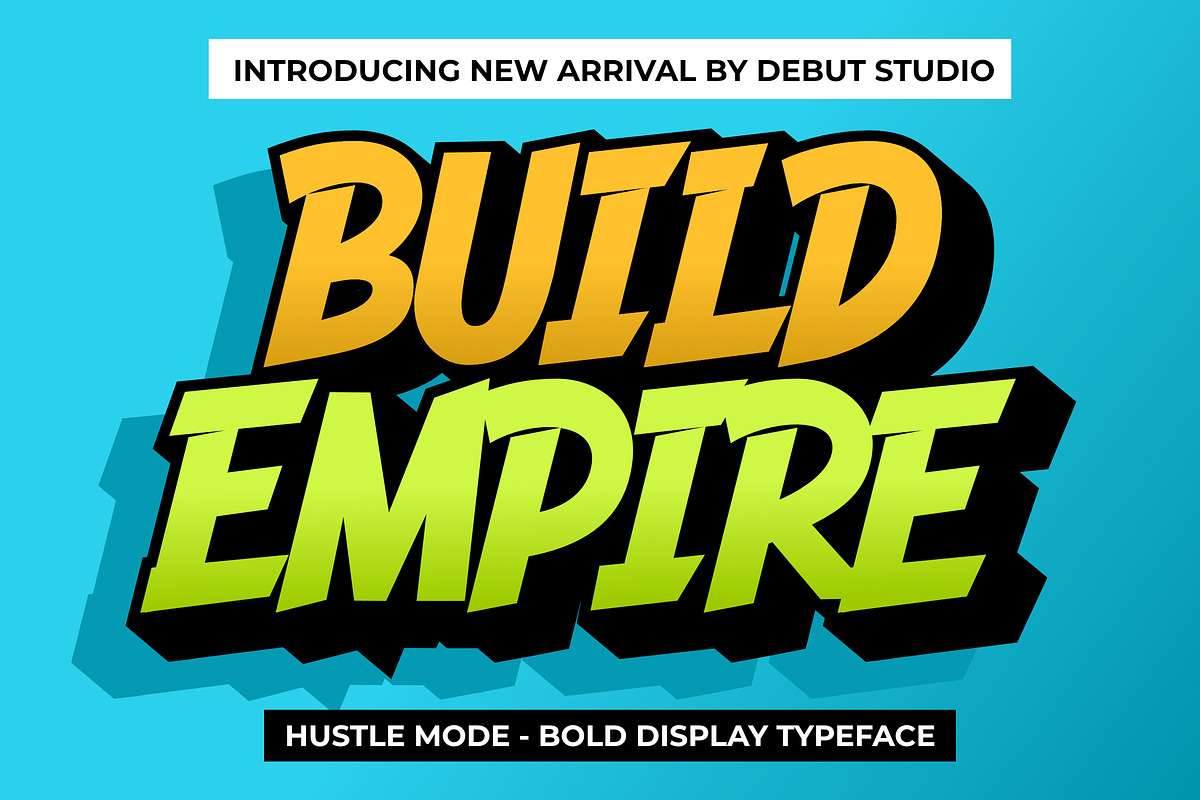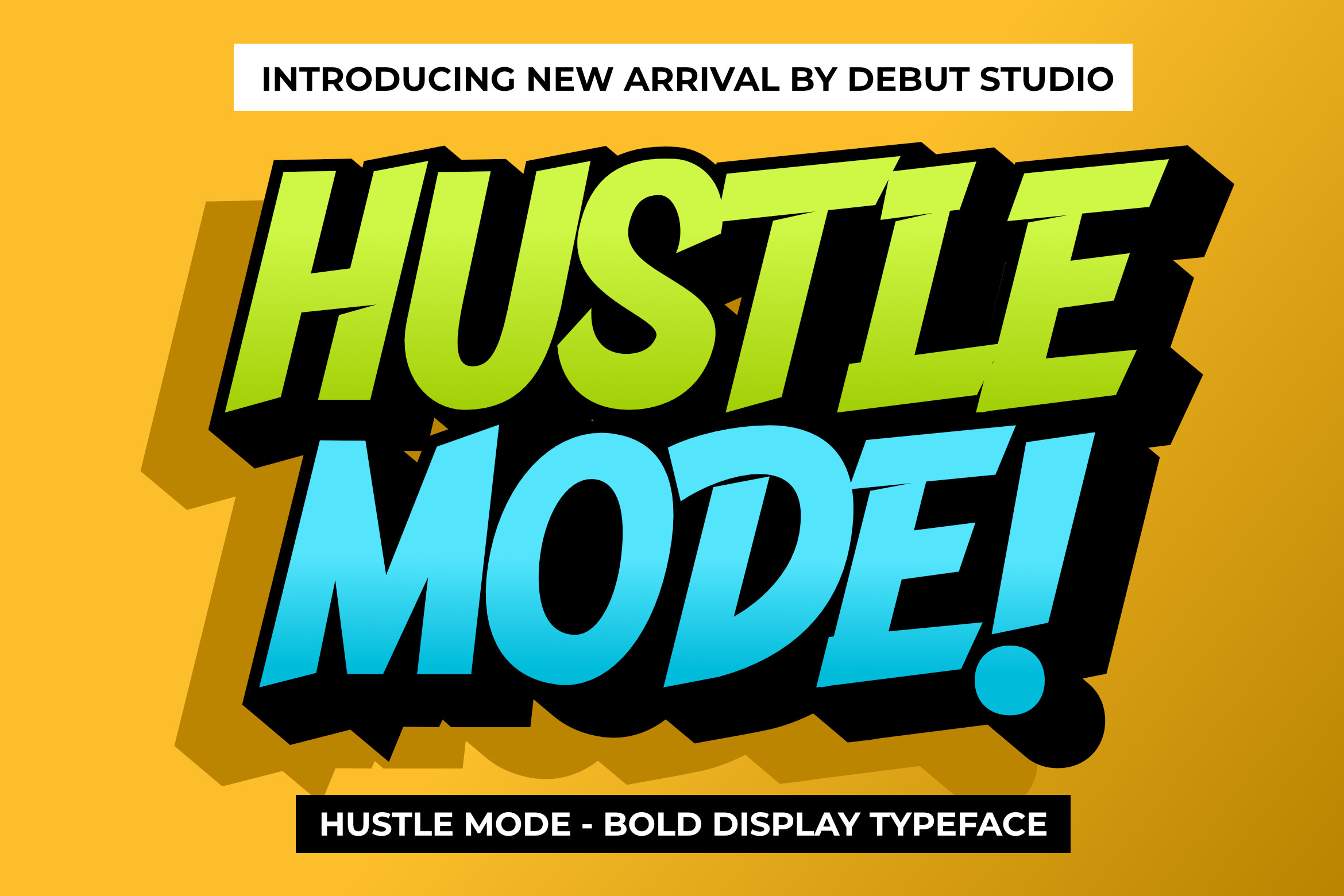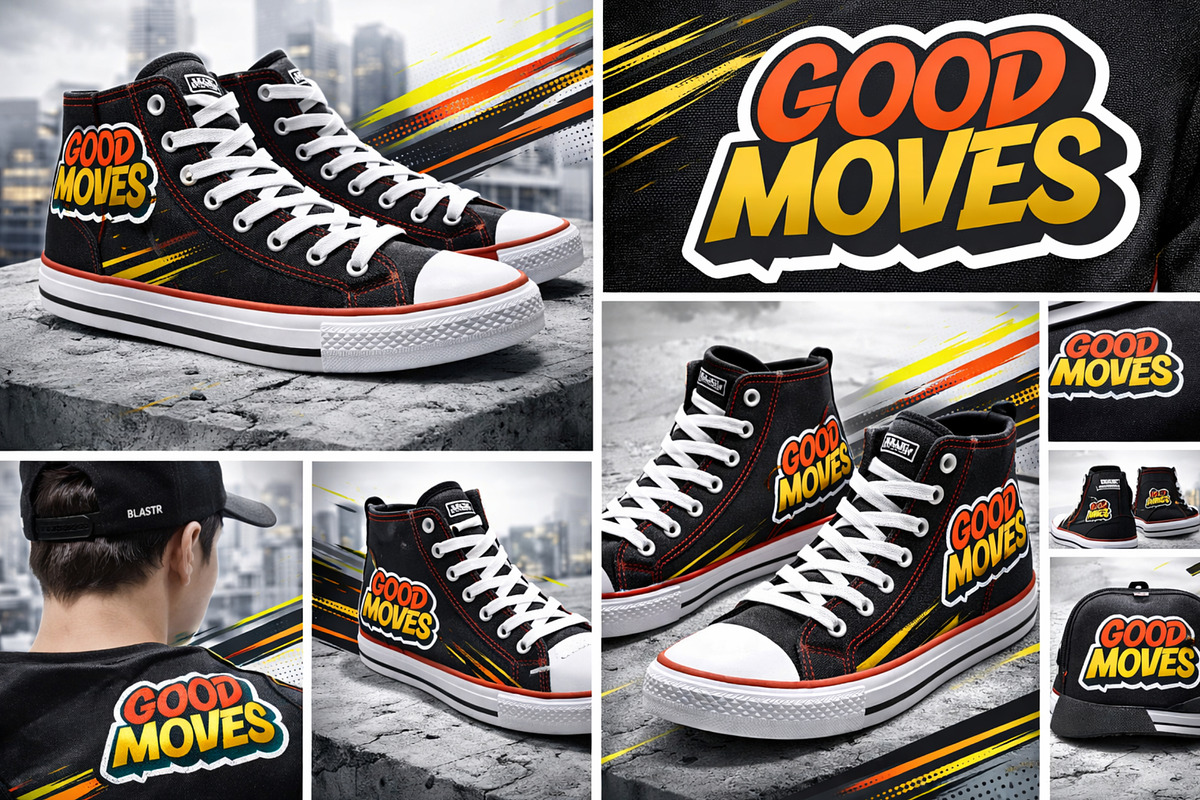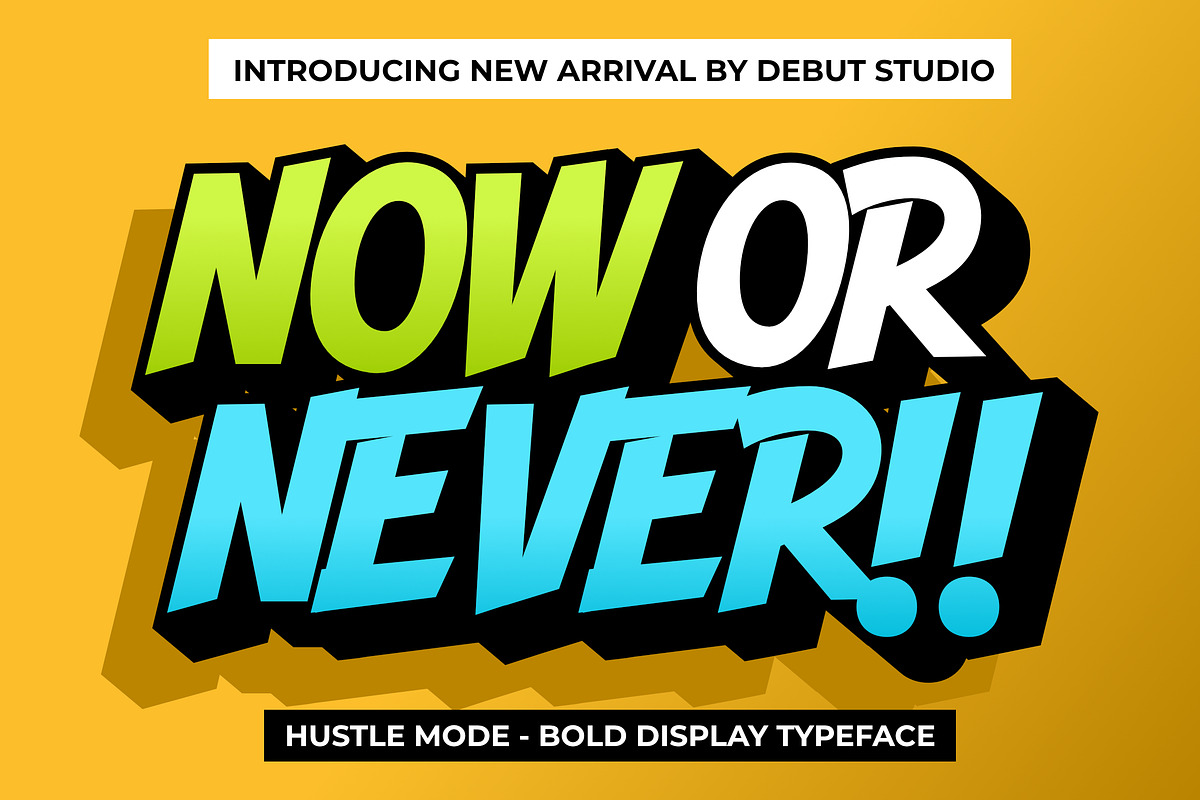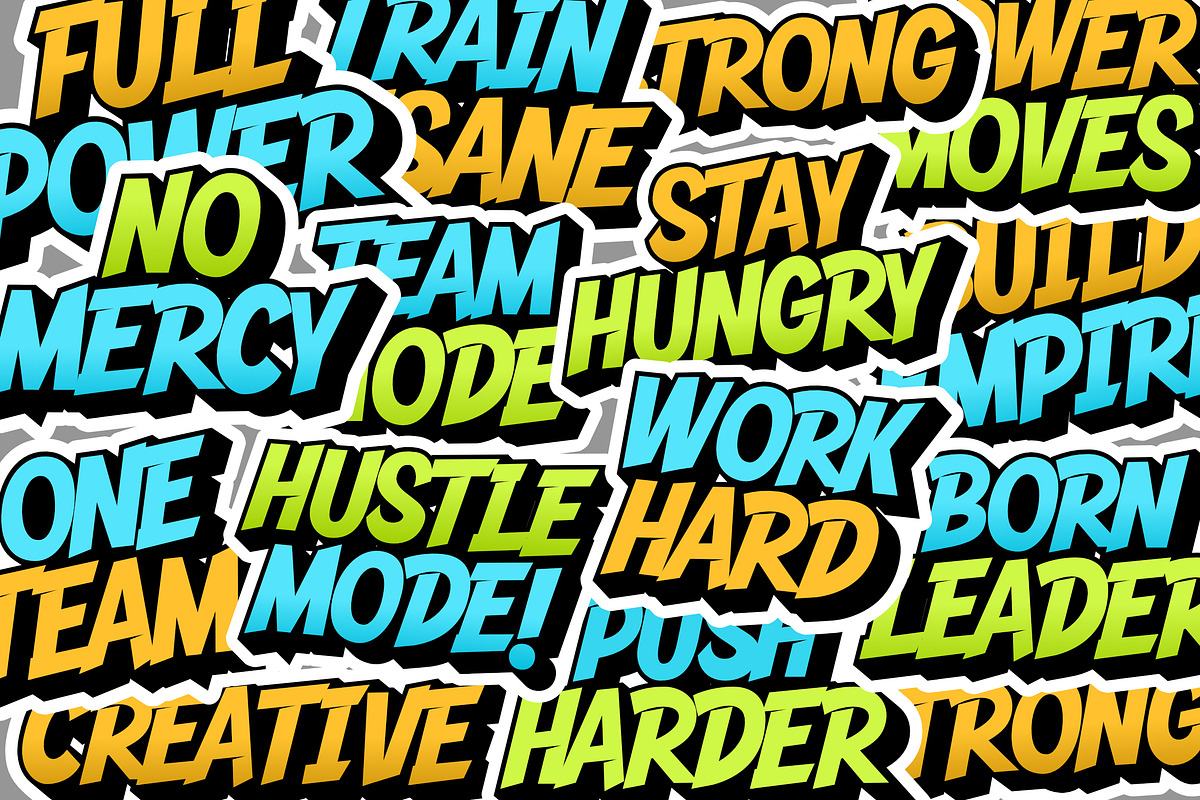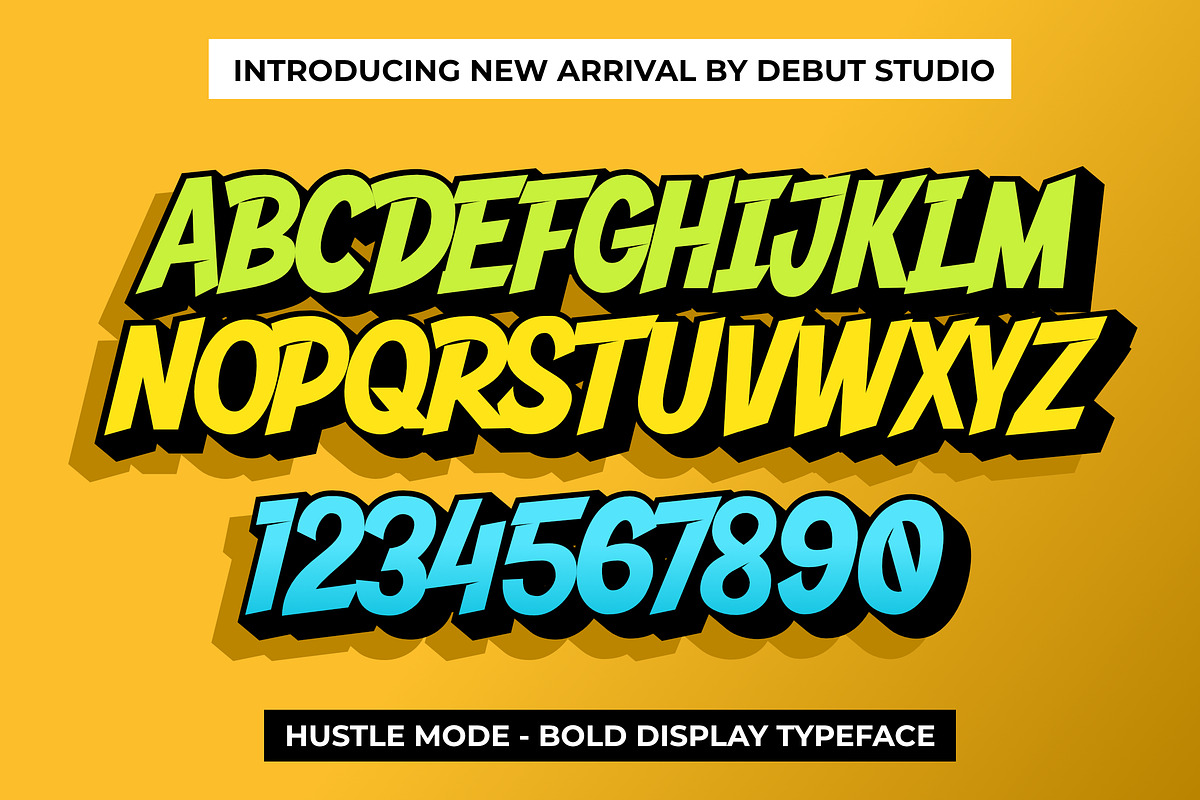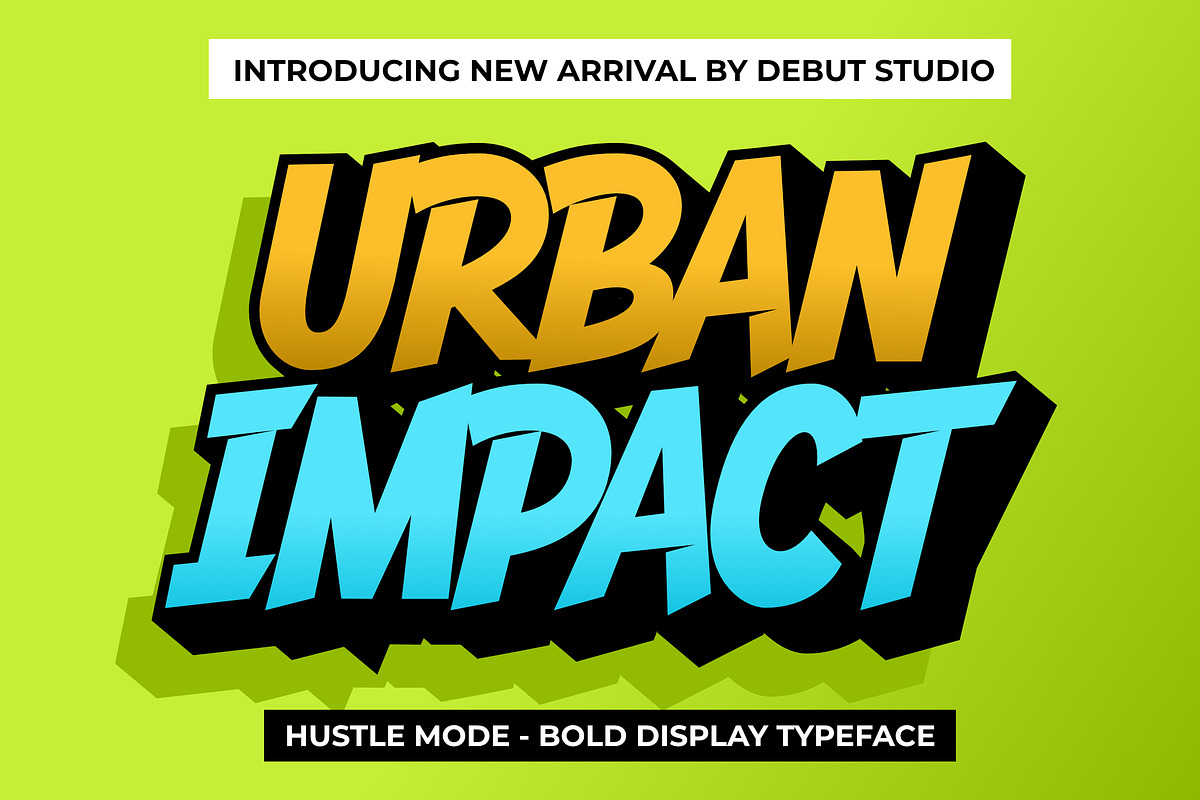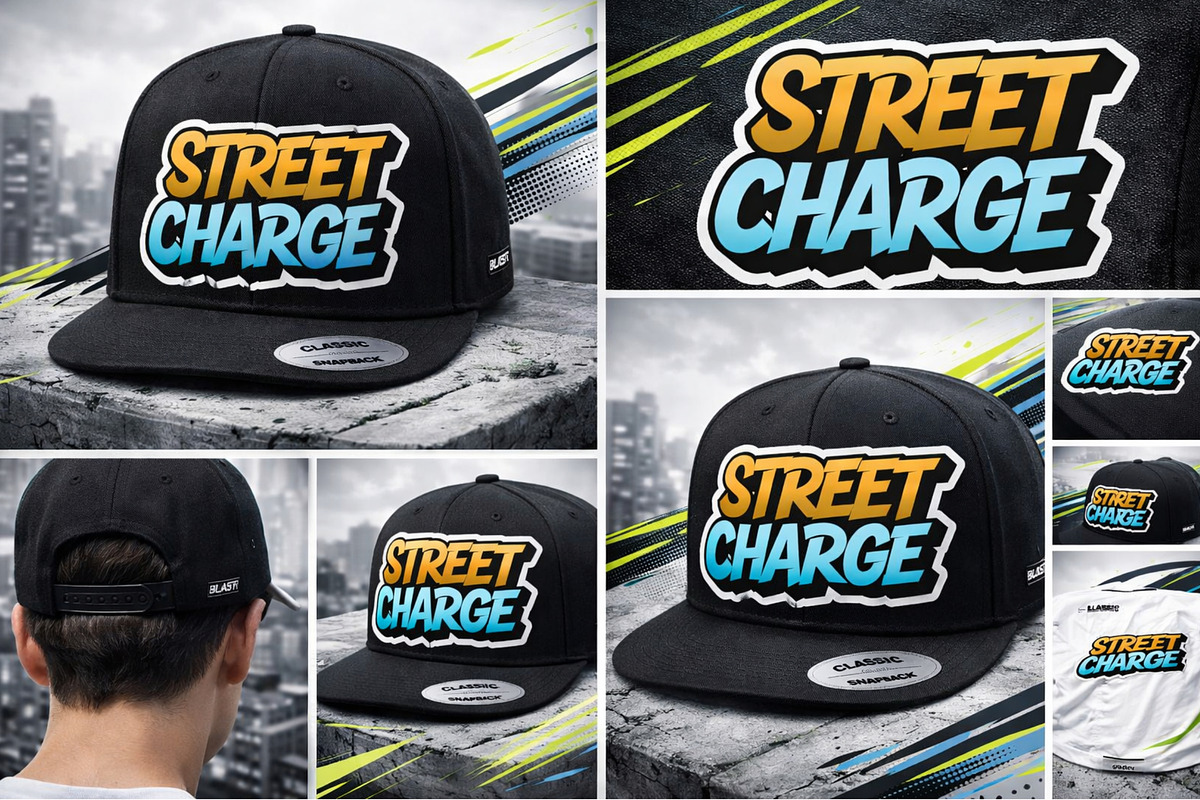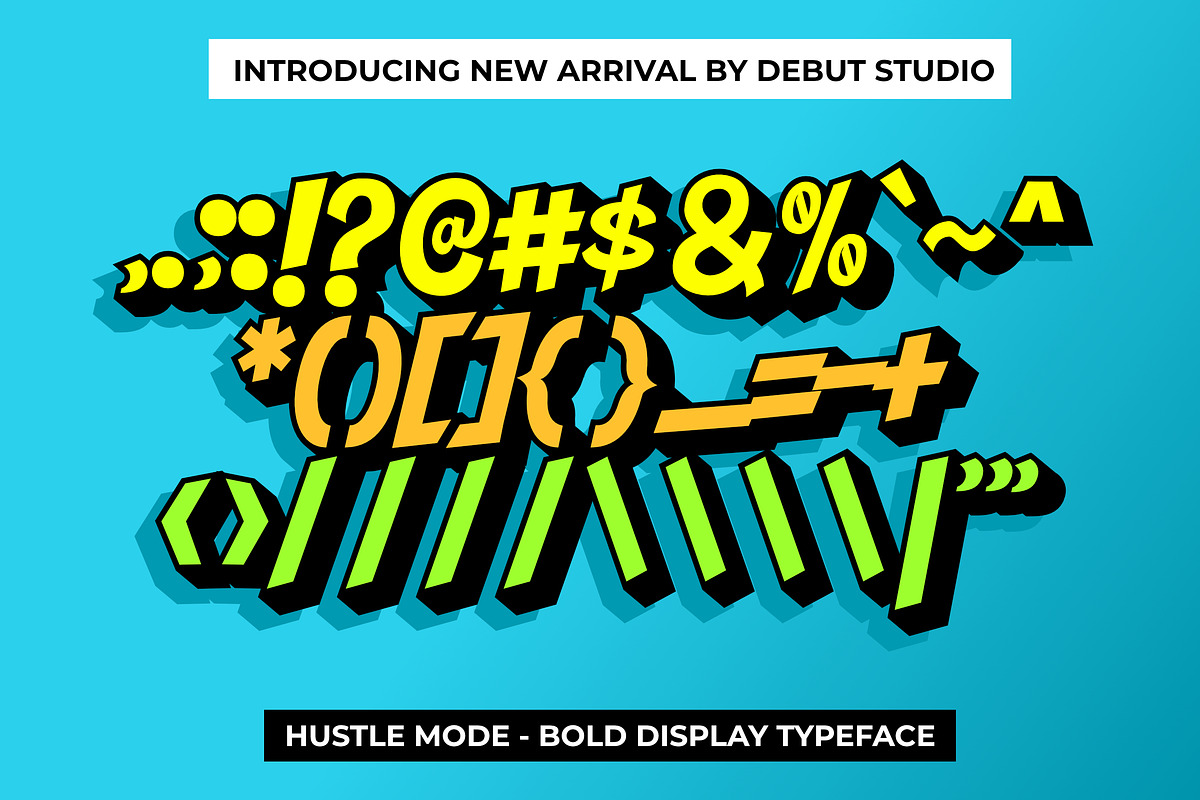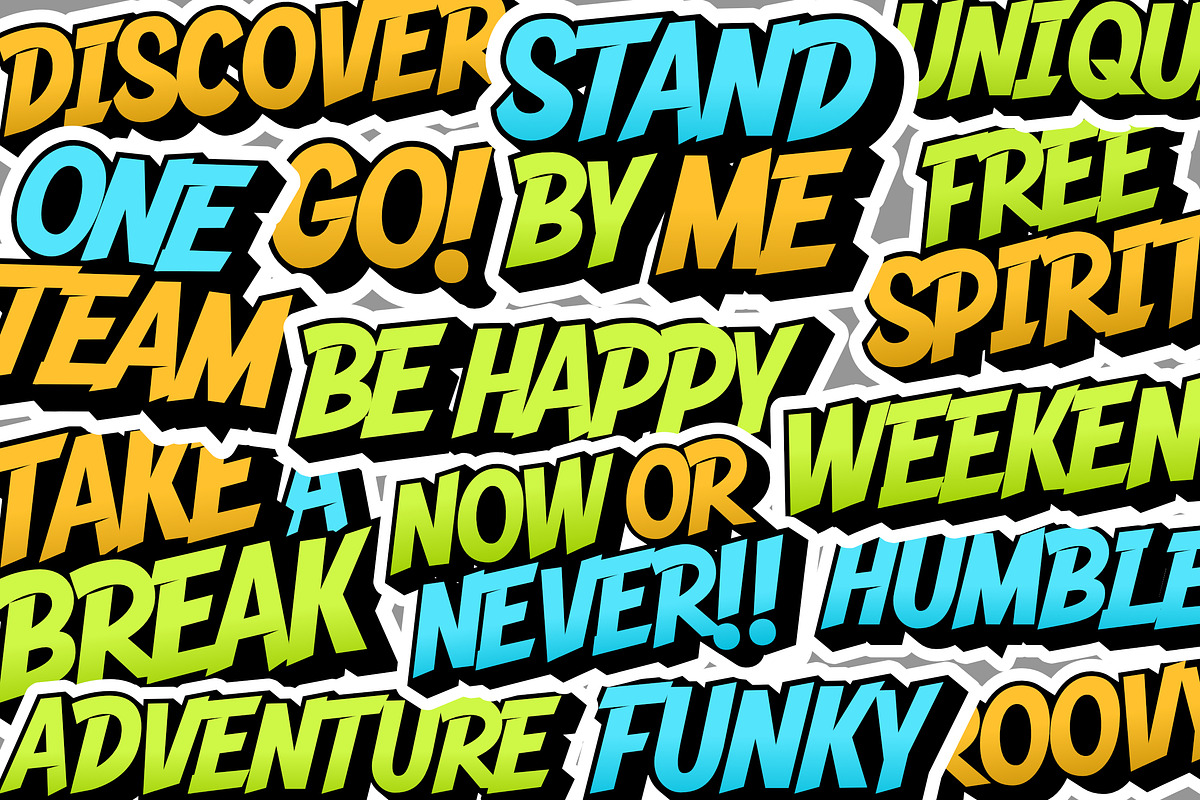
Hustle Mode - Bold Display Typeface
Hustle Mode – Bold Display Typeface Hustle Mode is a bold display typeface built for impact, energy, and unstoppable momentum. Designed to dominate headlines, this font commands attention in a single glance. It doesn’t whisper. It shouts.
Hustle Mode is designed for brands that move fast and think big. Perfect for streetwear, gym branding, sports logos, YouTube thumbnails, and powerful headline designs.
✨ Features:
- All Caps
- Multilangual Characters
- Layered Styles (Regular, Extrude, and Die Cut)
🔥 Visual Character Hustle Mode features:
- Heavy, solid letterforms
- Slight dynamic slant for forward motion
- Sharp cuts and aggressive angles
- Strong outline presence
- Powerful shadow compatibility
- Perfect structure for layered and 3D effects The letterforms feel like they’re moving forward — fast, confident, and unapologetic.
🎯 Perfect For
- Streetwear & apparel branding
- Sports jerseys & merchandise
- Esports logos
- Fast-food & youth packaging
- Event posters & tournament graphics
- YouTube thumbnails
- Motivational headlines
- Urban campaigns
- High-impact advertising If your headline needs to stop the scroll instantly — this is the typeface.
💥 Why Hustle Mode Stands Out
- High readability even with thick outlines
- Works beautifully with gradients or flat colors
- Ideal for drop shadows, extrusion, and bold layering
- Designed to be the focal point of any composition
- Strong personality without sacrificing clarity
✨ Brand Personality Hustle Mode represents:
- Ambition
- Energy
- Competition
- Movement
- Street culture
- Youth-driven confidence
- This is not a minimalist typeface.
- This is a high-impact display weapon for brands that want to be seen.